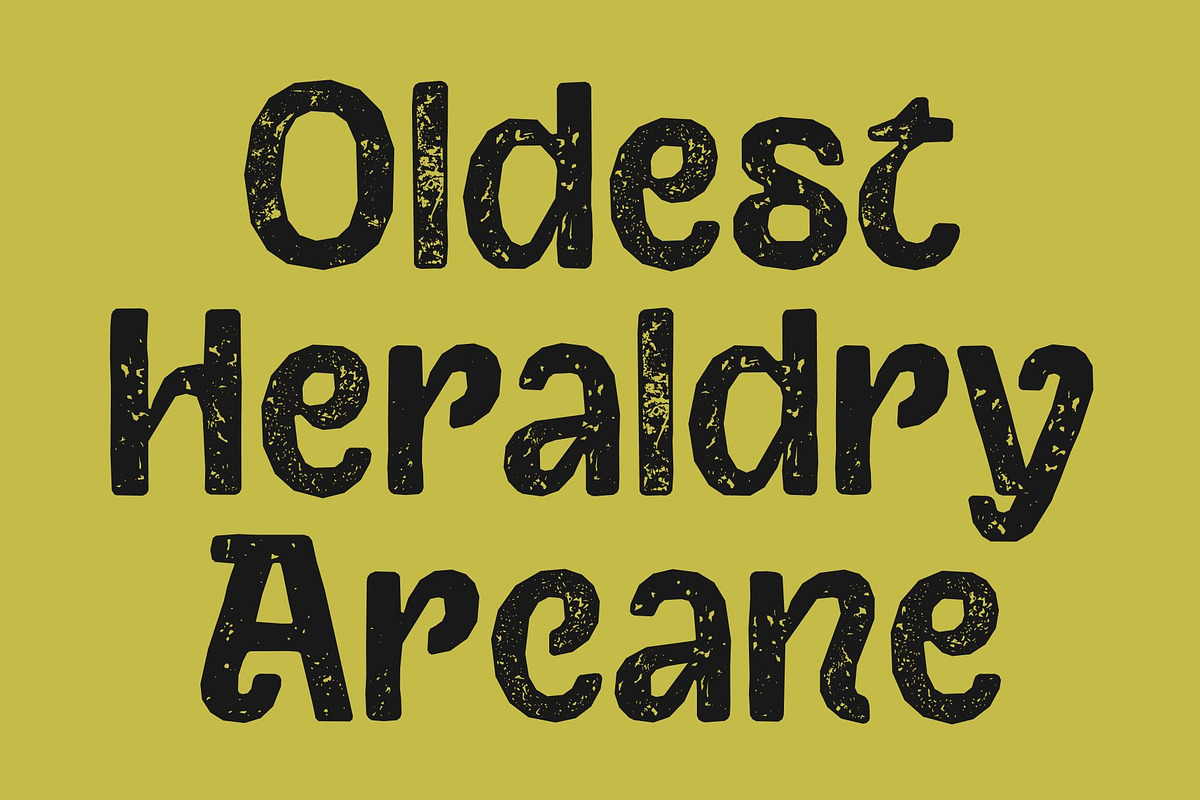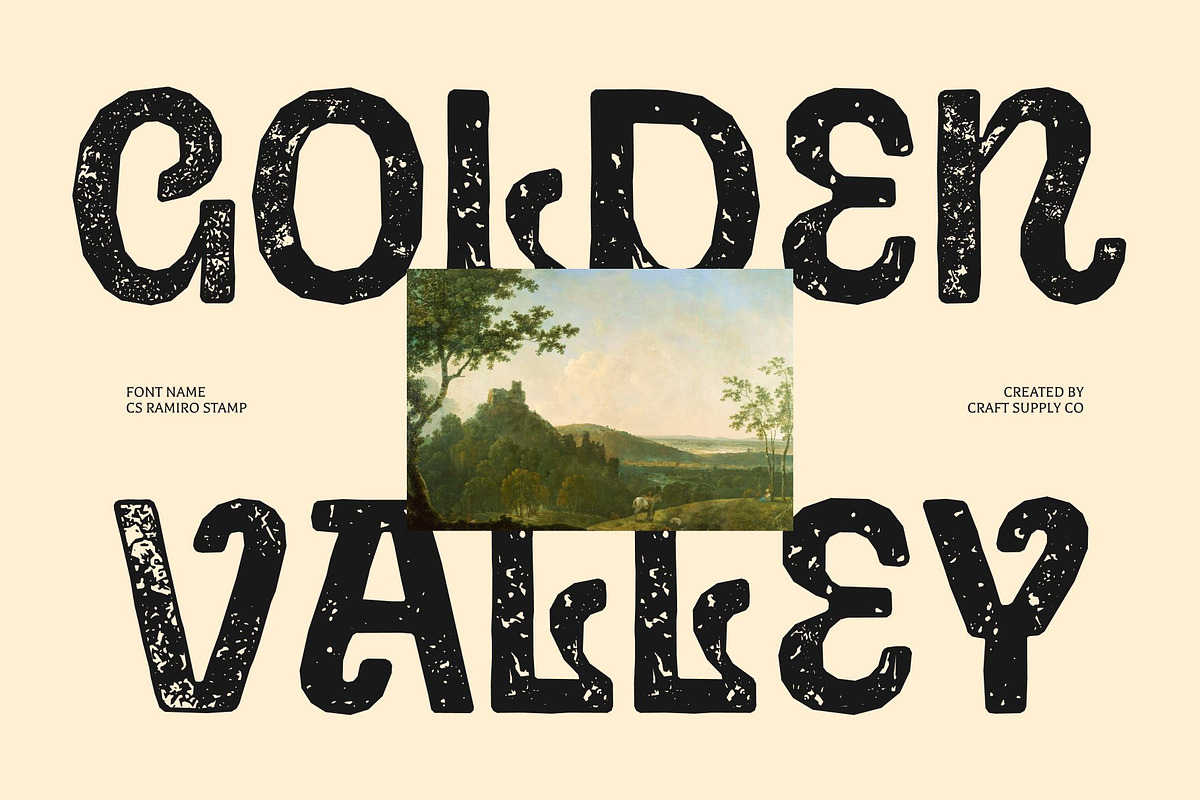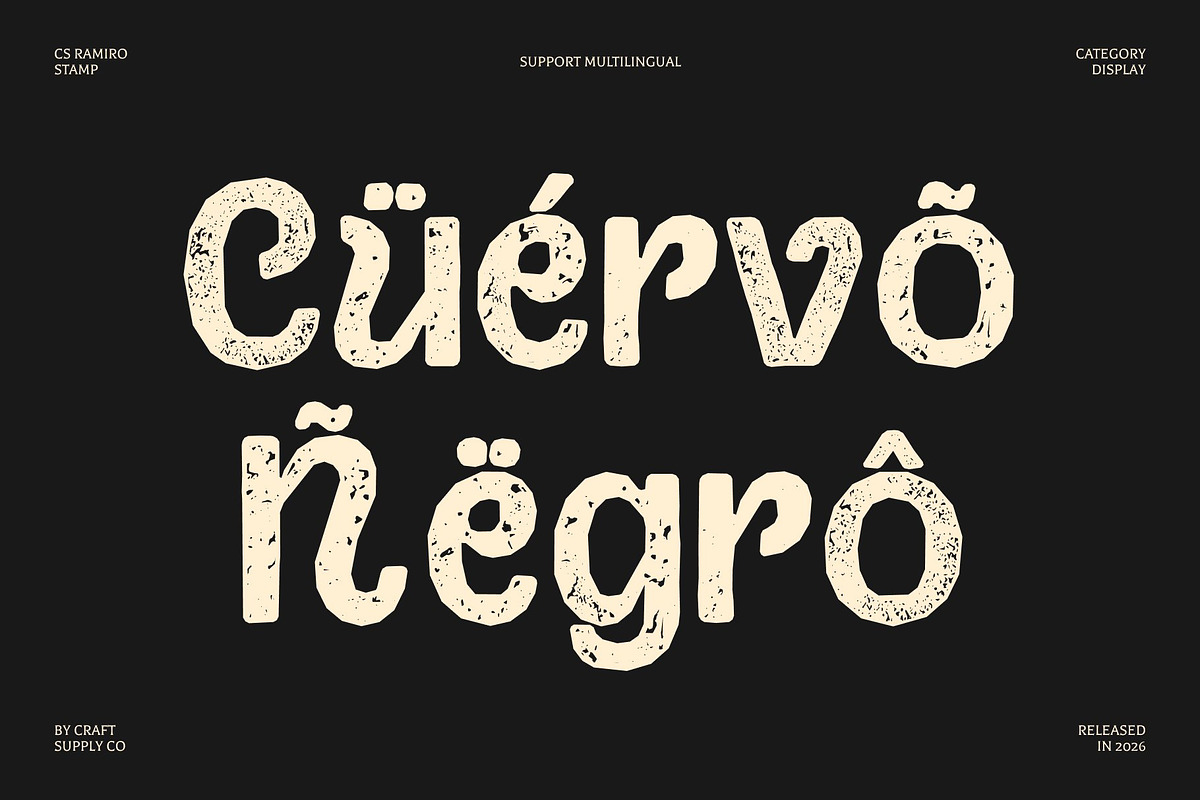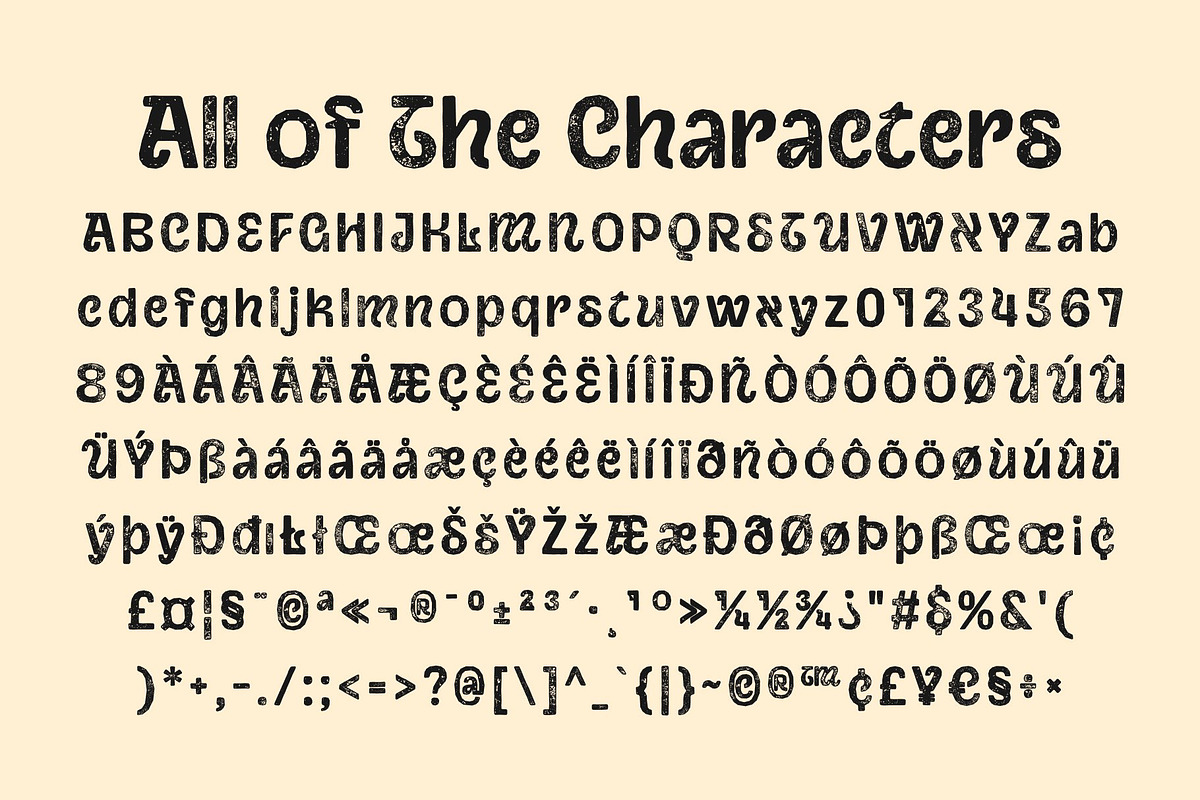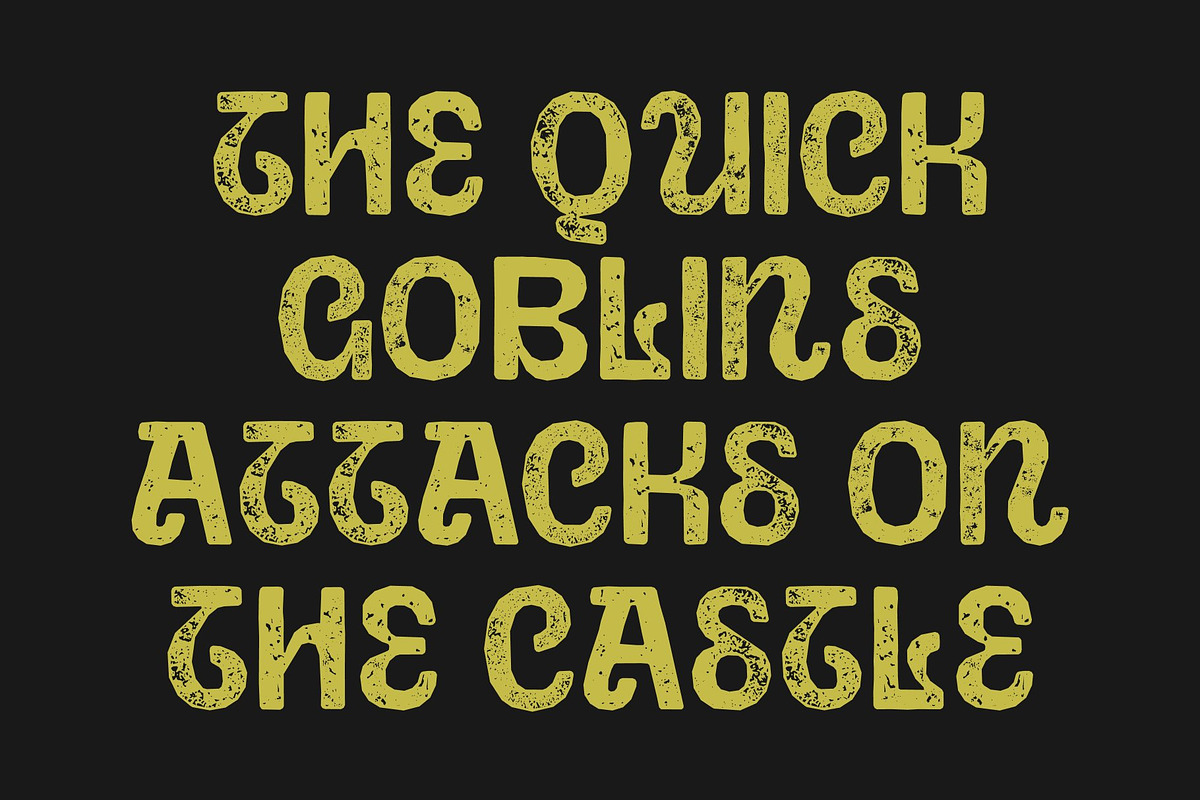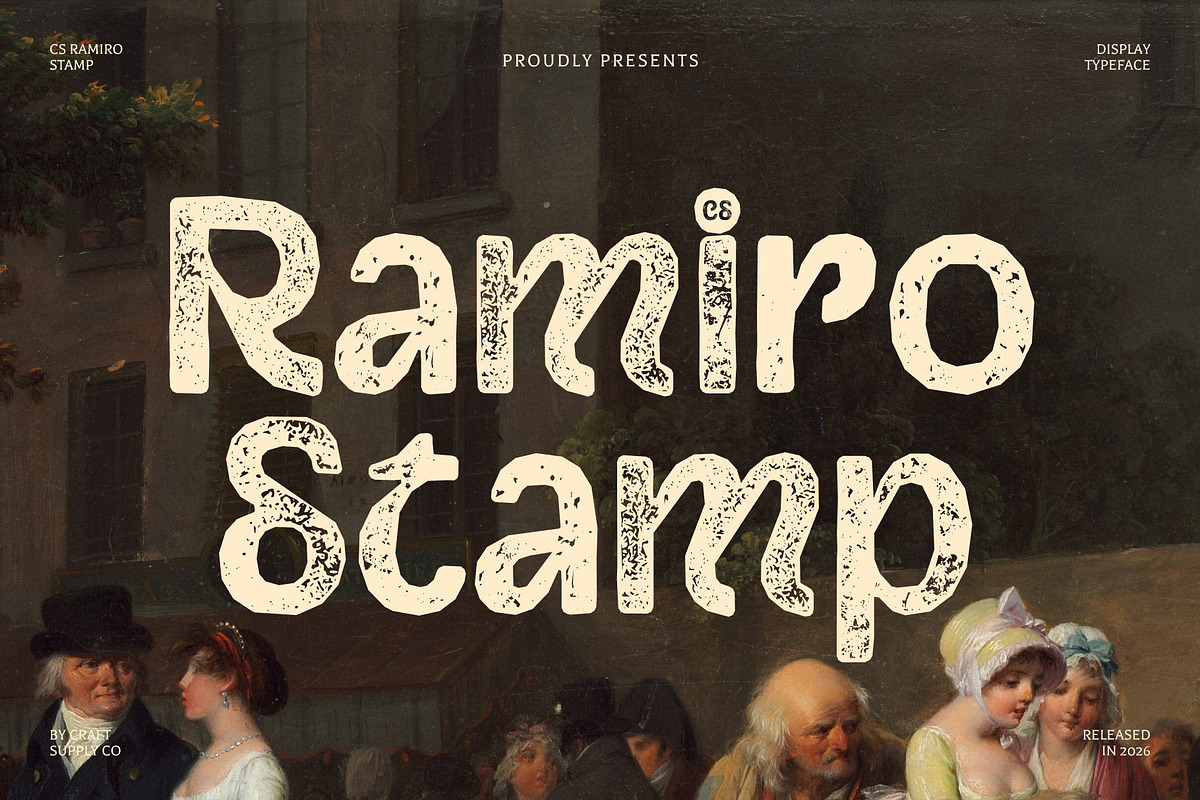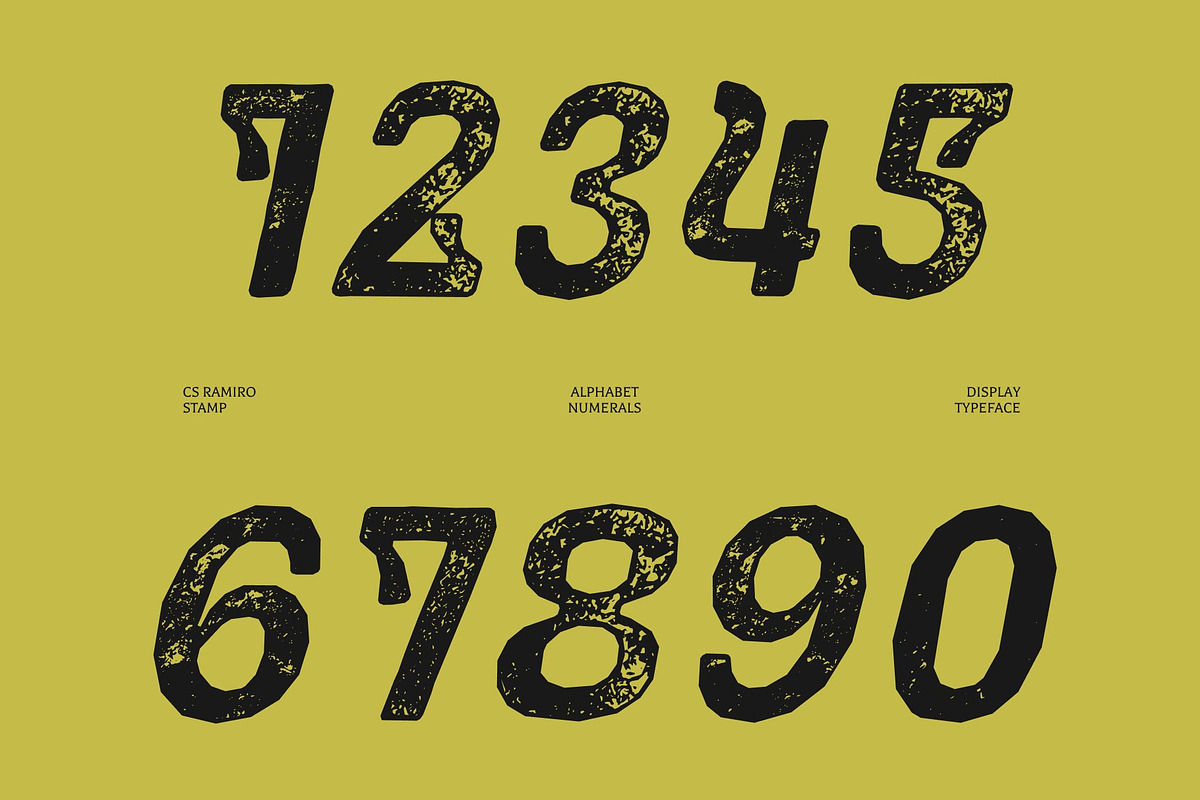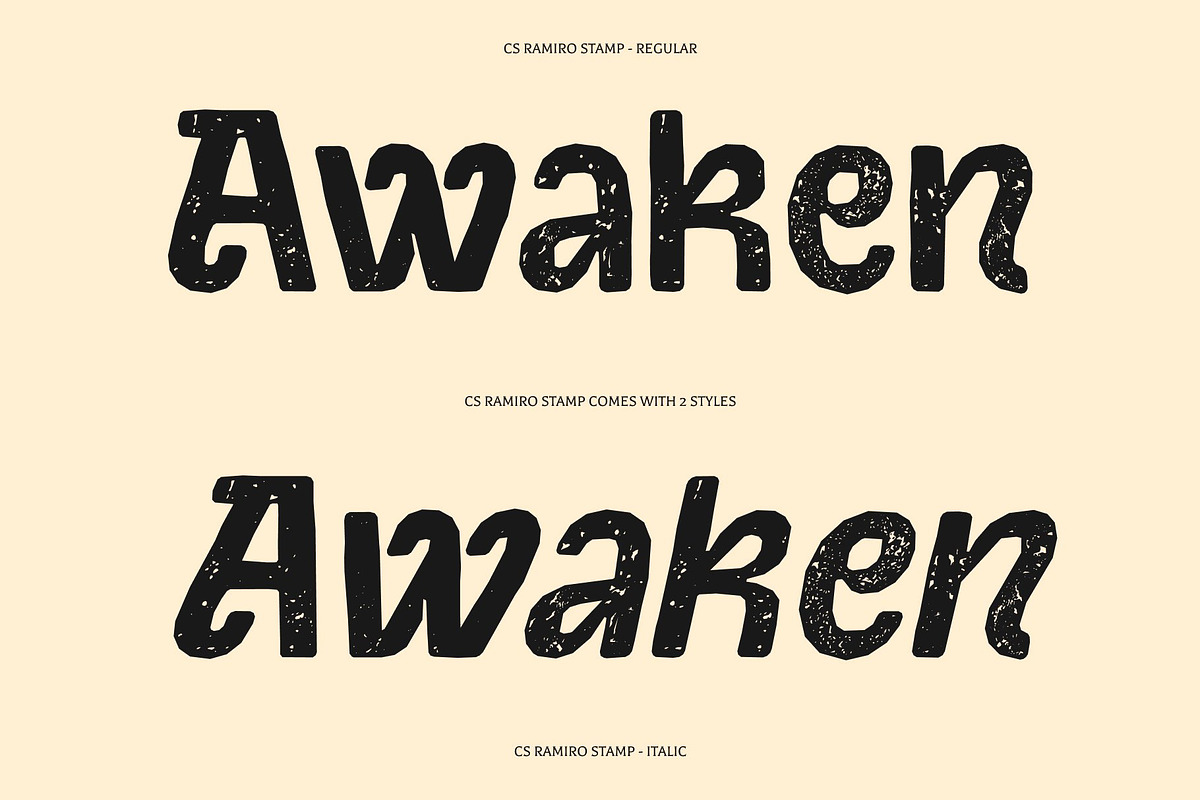
CS Ramiro Stamp
CS Ramiro Stamp – Renaissance Display Sans Serif Font: Where Classical Elegance Meets Vintage Stamp Texture
Ornamental Renaissance Forms with Timeless Sophistication This is a Renaissance display sans serif font that captures the ornate sophistication and graceful proportions of classical typography. Inspired by the artistic beauty of Renaissance design, its refined structure blends historical charm with a modern artistic approach. Every character feels elegant, decorative, and full of heritage, making the font perfect for luxurious and culturally inspired visual compositions.
Stamp Texture with Authentic Vintage Character This font features rough and uneven detailing that adds vintage authenticity and tactile visual depth. This distressed effect creates a handcrafted appearance reminiscent of aged prints, antique books, and traditional stamping techniques. The result is a design that feels timeless, artistic, and rich with expressive character.
Classical Grandeur with Artistic Handmade Appeal This font delivers a typographic identity that feels sophisticated, historic, and visually immersive. Its ornamental forms combined with textured detailing create a perfect balance between classical elegance and authentic handcrafted aesthetics.
Perfect for Editorials, Invitations, and Luxury Branding This is especially suited for book covers, posters, invitations, luxury branding, editorial layouts, cultural event visuals, packaging, and promotional materials that require a sense of heritage and grandeur. Its textured Renaissance forms make it ideal for logos, headlines, certificates, signage, and visual identities that seek refined beauty with a timeless vintage atmosphere.
CS Ramiro Stamp Regular
CS Ramiro Stamp Italic